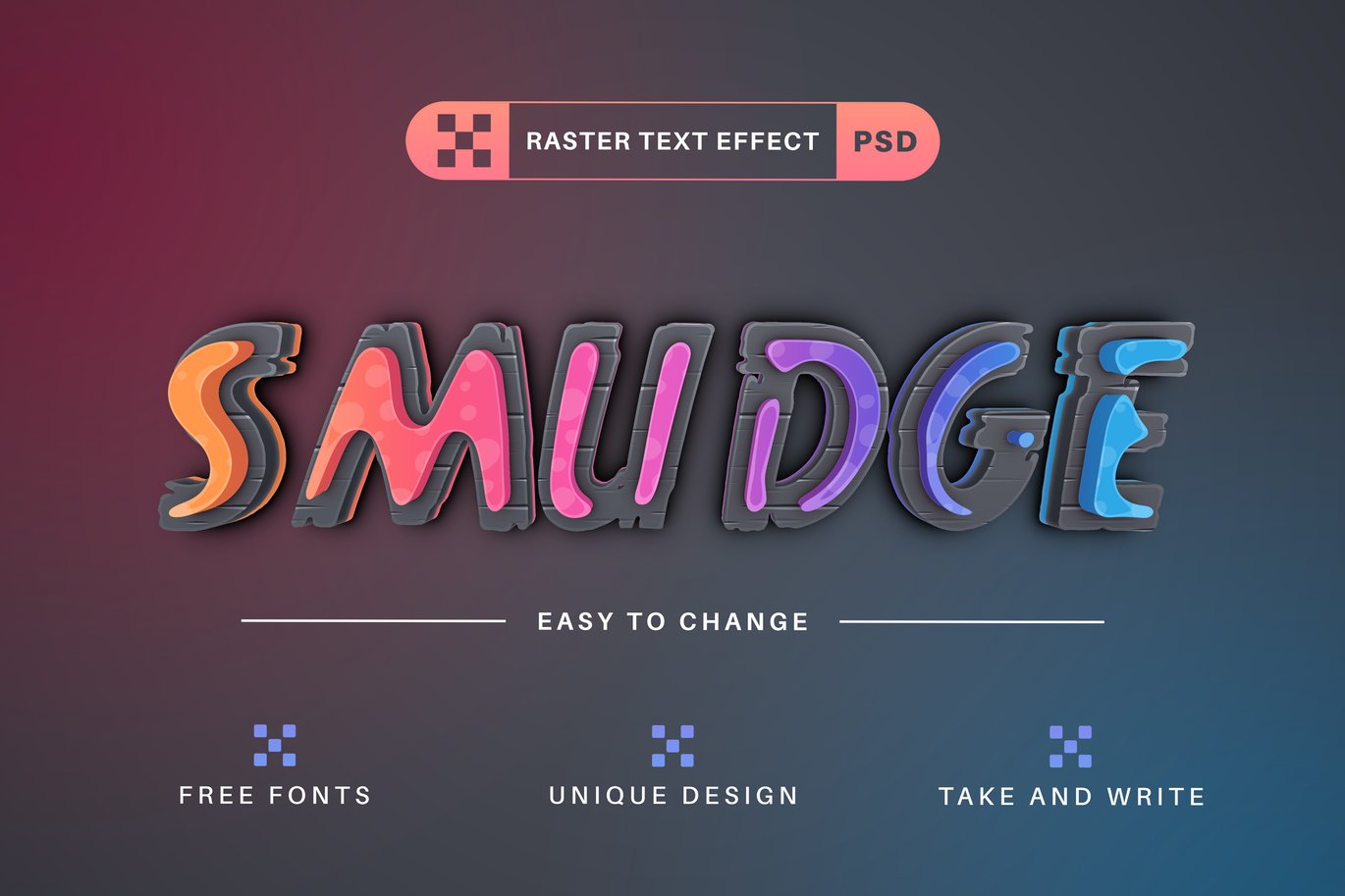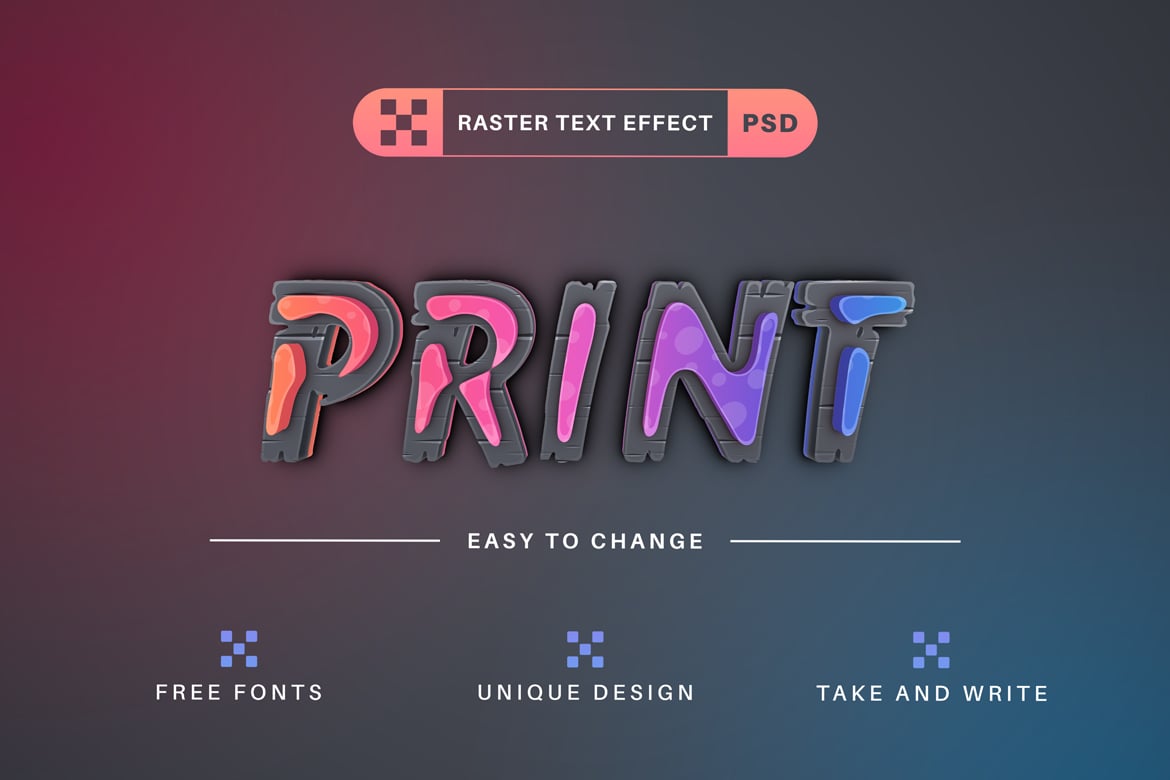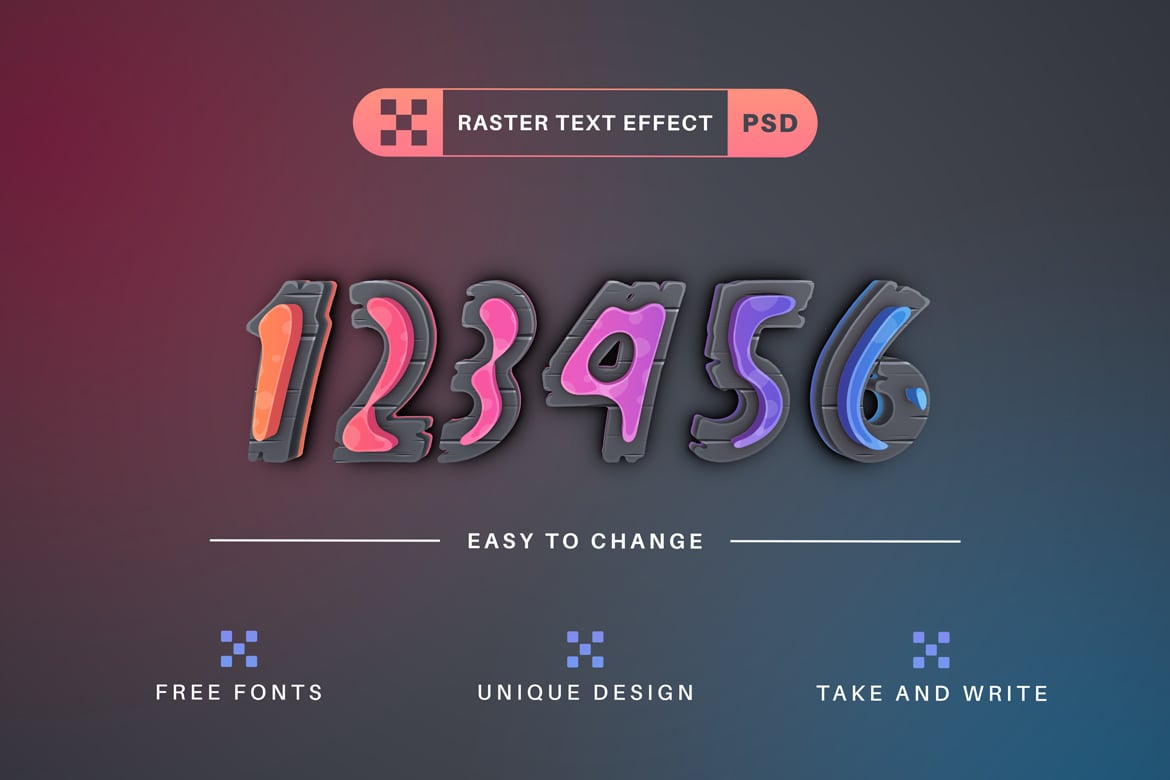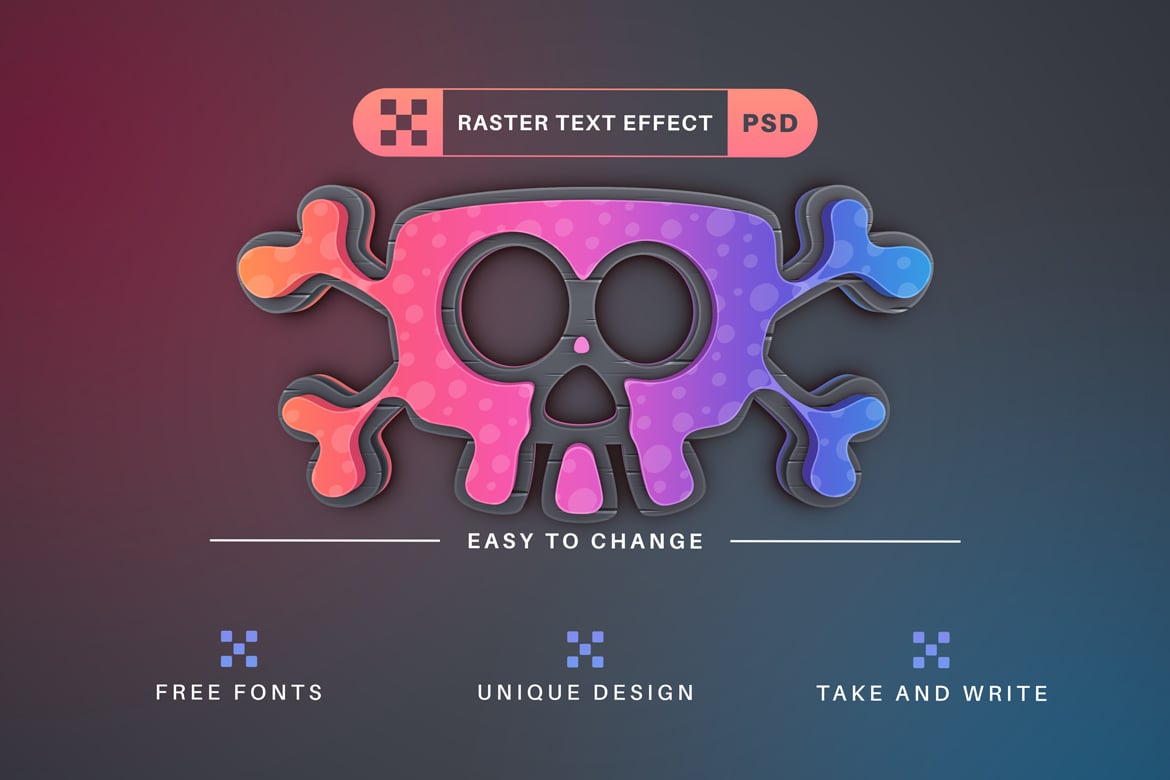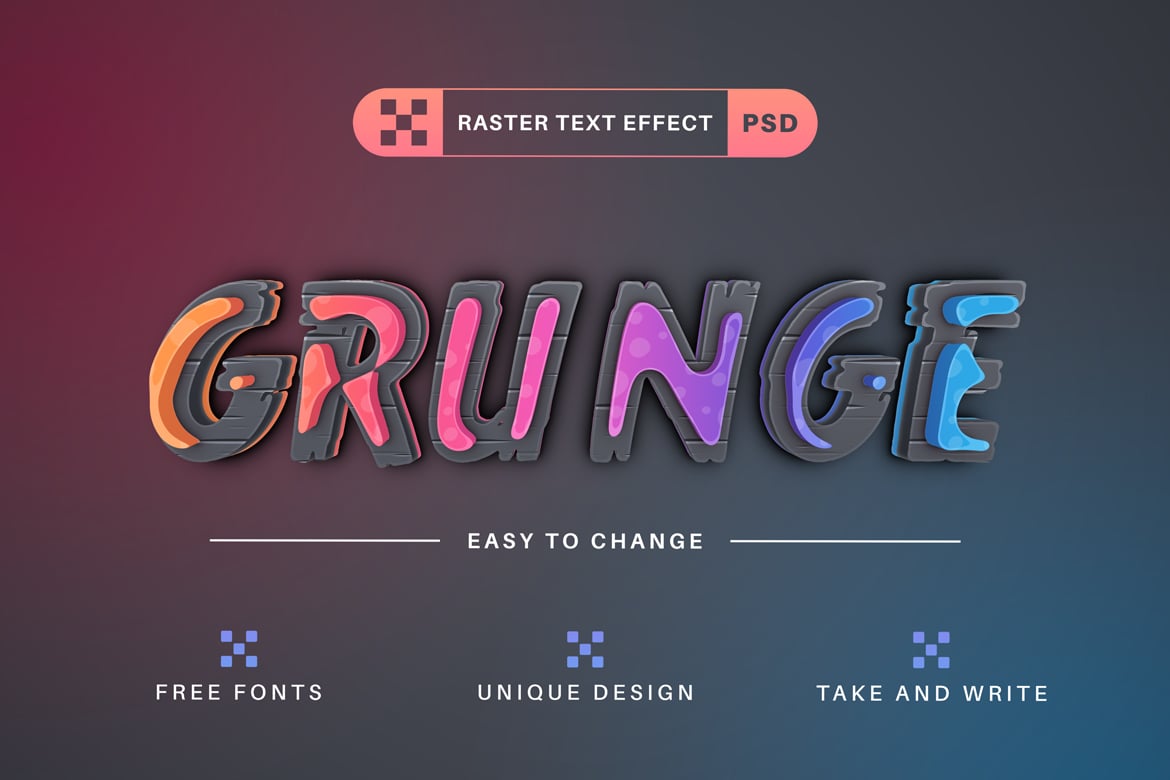
Smudge – Editable Text Effect, Font Style
I’m glad to introduce my new raster text effect “Smudge”.
Be as creative as you like to be in expressing yourself using this unique text effect.
The effect is perfect for any project that needs a unique handy touch whatever else your imagination leads you to!